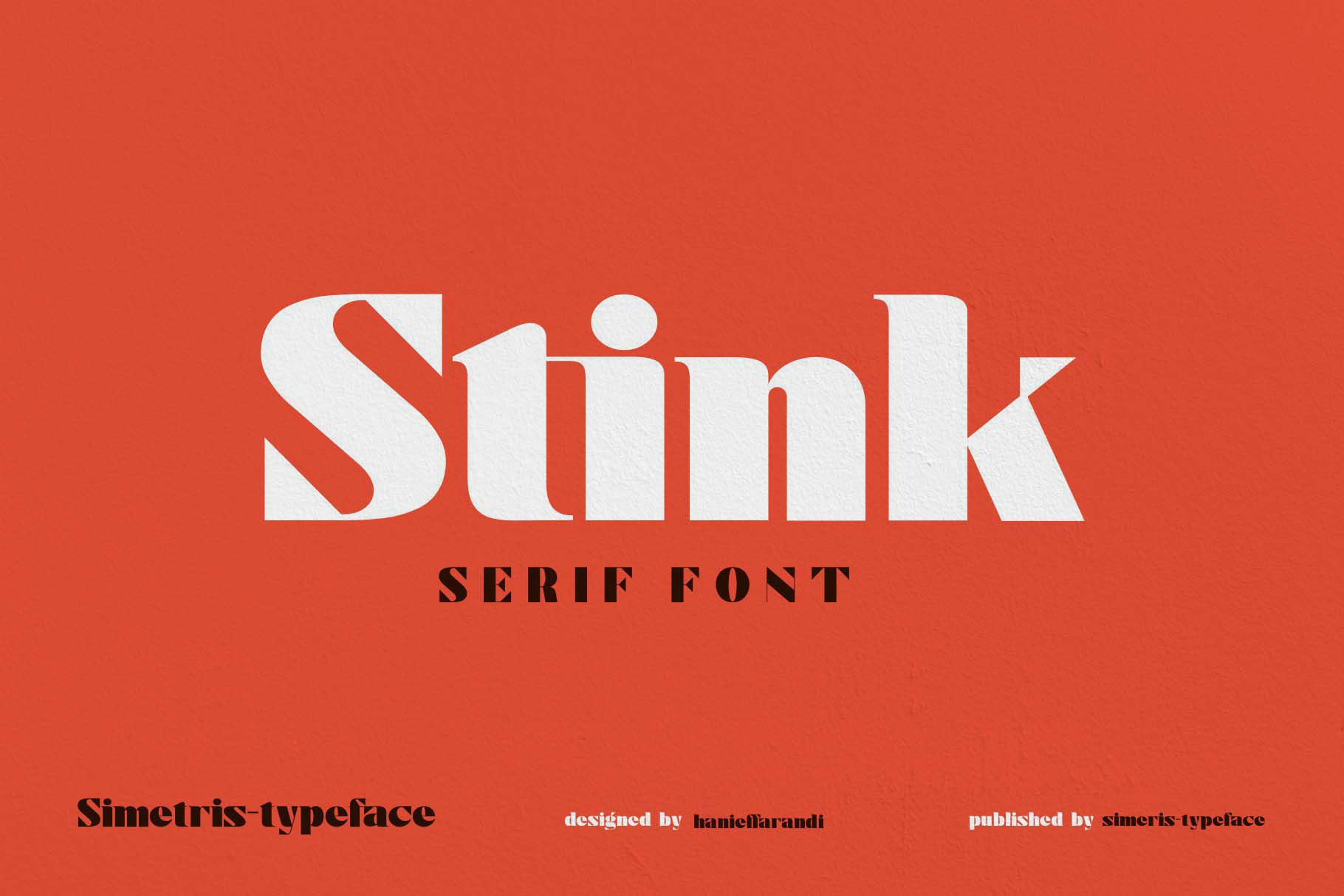
Stink / Bold Serif Font
Introducing the "Stink" font designed elegantly and simply, with a combination of bold, thick, and symmetrical. This font is suitable for your work needs.